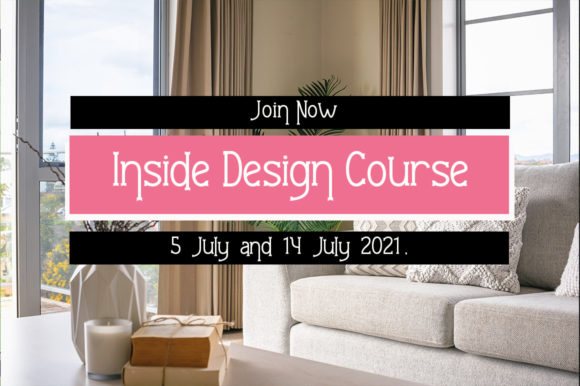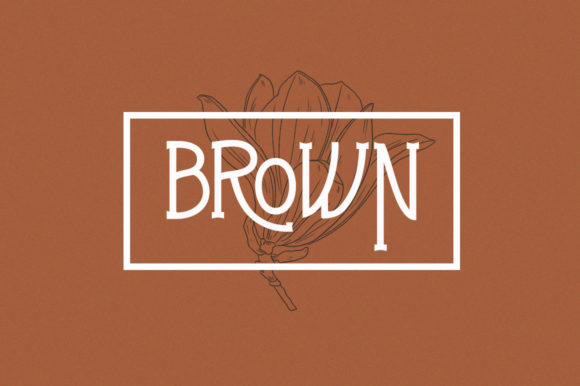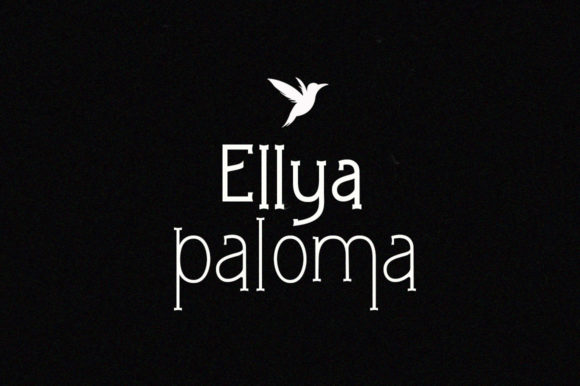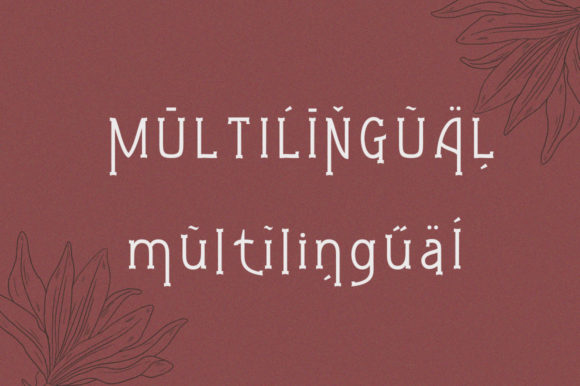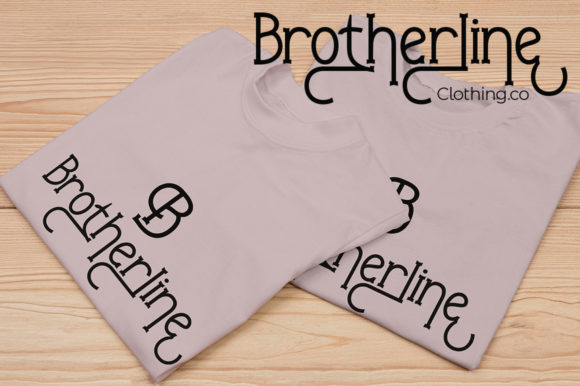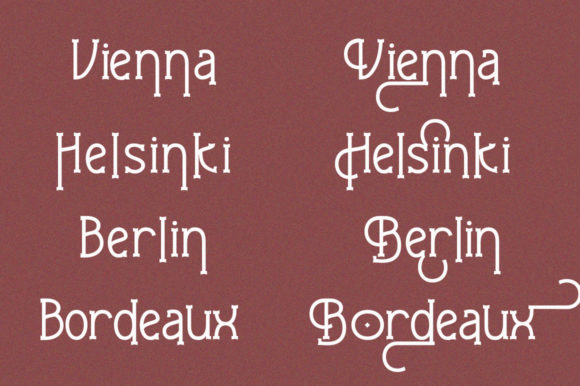
Gleams Font: Elevate Your Designs with a Distinct and Modern Serif
In the world of typography, a font can make or break a design. For designers and crafters looking to add a touch of modern elegance to their projects, Gleams Font is an excellent choice. This distinct and modern serif font is versatile and can be used for a wide range of applications, from logos and wedding invitations to headings, t-shirts, and more.
What Makes Gleams Font Stand Out?
Gleams Font boasts a unique blend of classic serif elements with a modern twist. Its distinct characteristics make it perfect for designers who want to add a touch of sophistication to their work. The font’s clean lines, elegant curves, and precise craftsmanship ensure that it stands out in any design.
Uses of Gleams Font
The versatility of Gleams Font is one of its most significant advantages. Here are some of the many ways you can use this fantastic font:
- Logos: Create a lasting impression with a custom logo that incorporates Gleams Font. Its modern and sleek design ensures that your brand stands out.
- Wedding Invitations: Make your wedding invitations truly special with Gleams Font. Its elegant and sophisticated design sets the tone for a memorable occasion.
- Headings: Add a touch of modernity to your articles, blog posts, and other written content with Gleams Font. Its clean and crisp design ensures that your headings stand out.
- T-Shirts: Create custom apparel that makes a statement with Gleams Font. Its unique design ensures that your t-shirts stand out from the crowd.
- Letterhead: Elevate your business correspondence with Gleams Font. Its professional and modern design ensures that your letterhead makes a lasting impression.
- Signage: Create eye-catching signage that grabs attention with Gleams Font. Its bold and modern design ensures that your message is conveyed effectively.
- Labels: Add a touch of elegance to your product labels with Gleams Font. Its clean and sophisticated design ensures that your products stand out.
- News: Use Gleams Font to add a touch of modernity to your news articles and publications. Its clean and crisp design ensures that your content is easy to read.
- Posters: Create stunning posters that grab attention with Gleams Font. Its bold and modern design ensures that your message is conveyed effectively.
- Badges: Design custom badges that make a statement with Gleams Font. Its unique and modern design ensures that your badges stand out.
Why Choose Gleams Font?
With so many fonts available, why choose Gleams Font? Here are a few reasons why designers and crafters love this modern serif font:
- Unique Design: Gleams Font boasts a unique and modern design that sets it apart from other fonts.
- Versatility: This font is incredibly versatile and can be used for a wide range of applications.
- Elegance: Gleams Font adds a touch of elegance and sophistication to any design.
- Readability: The font’s clean and crisp design ensures that it is easy to read, making it perfect for body text and headings.
Tips for Using Gleams Font
To get the most out of Gleams Font, here are a few tips to keep in mind:
- Experiment with Sizes: Gleams Font looks great in a variety of sizes, from small body text to large headings.
- Play with Colors: Try out different colors to see how they affect the overall look and feel of the font.
- Mix and Match: Combine Gleams Font with other fonts to create a unique and visually appealing design.
Gleams Font is a distinct and modern serif font that is perfect for designers and crafters looking to add a touch of elegance and sophistication to their work. Its versatility, unique design, and readability make it an excellent choice for a wide range of applications. Whether you’re creating logos, wedding invitations, headings, or more, Gleams Font is sure to elevate your designs to the next level.